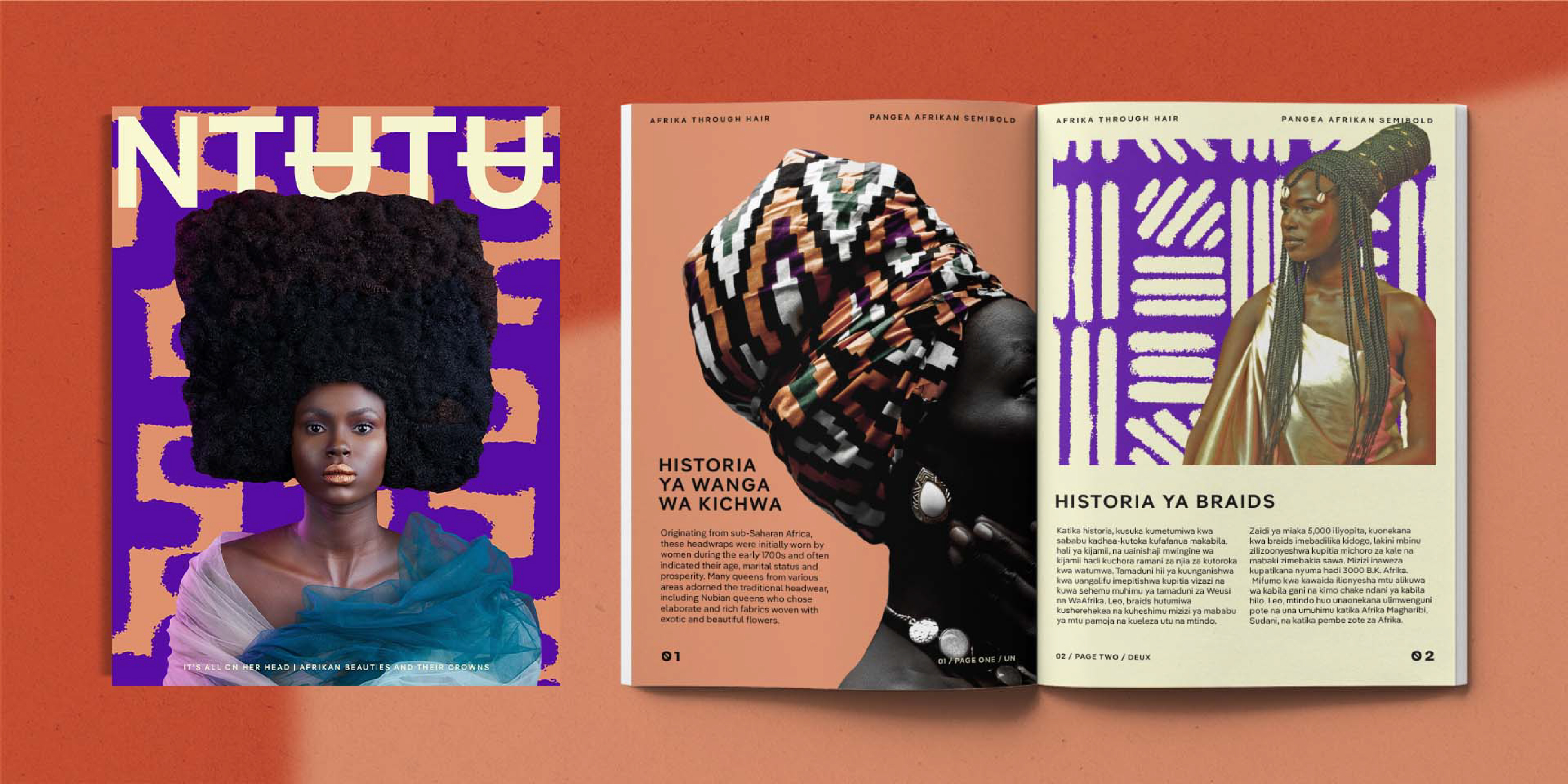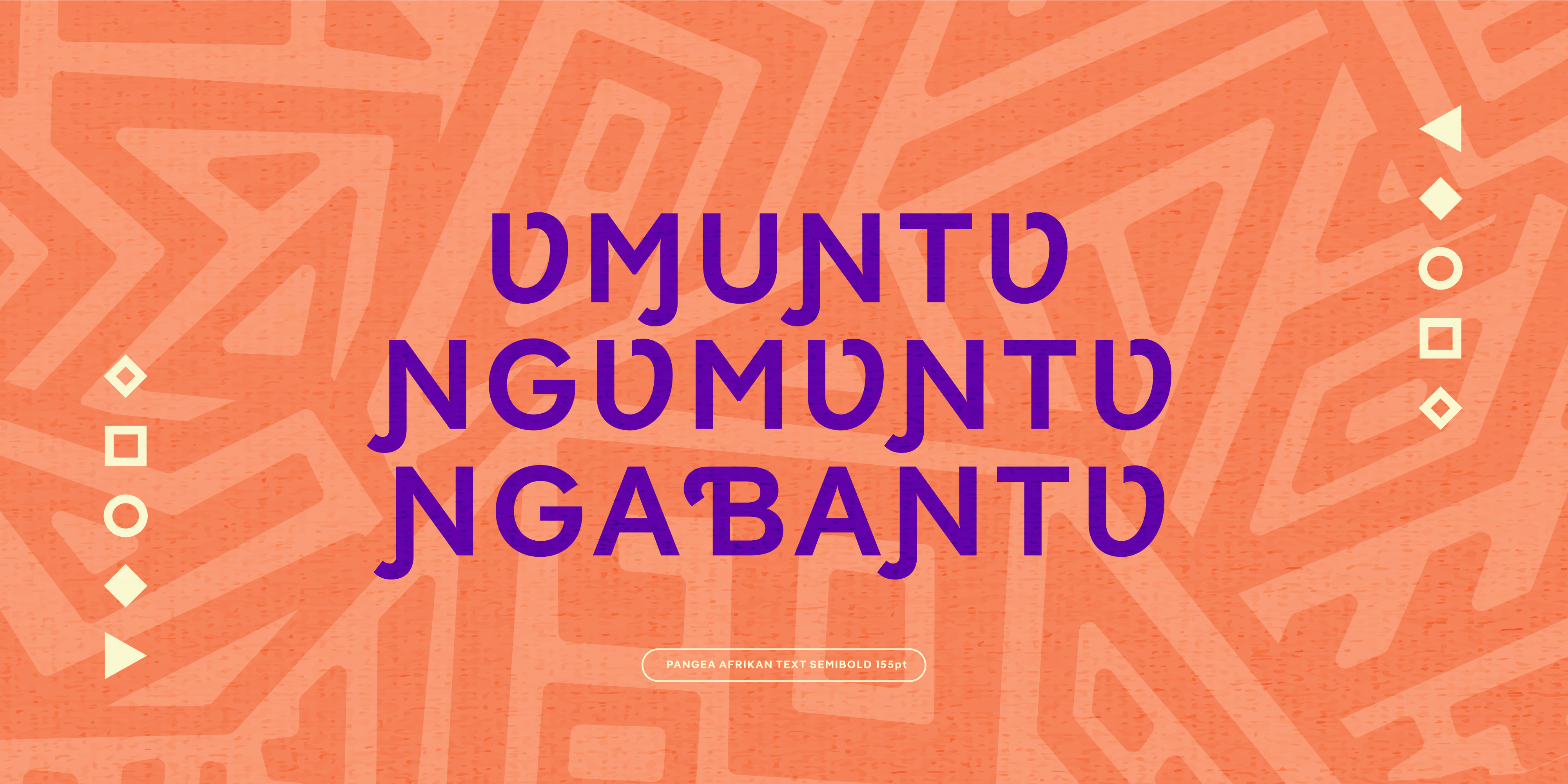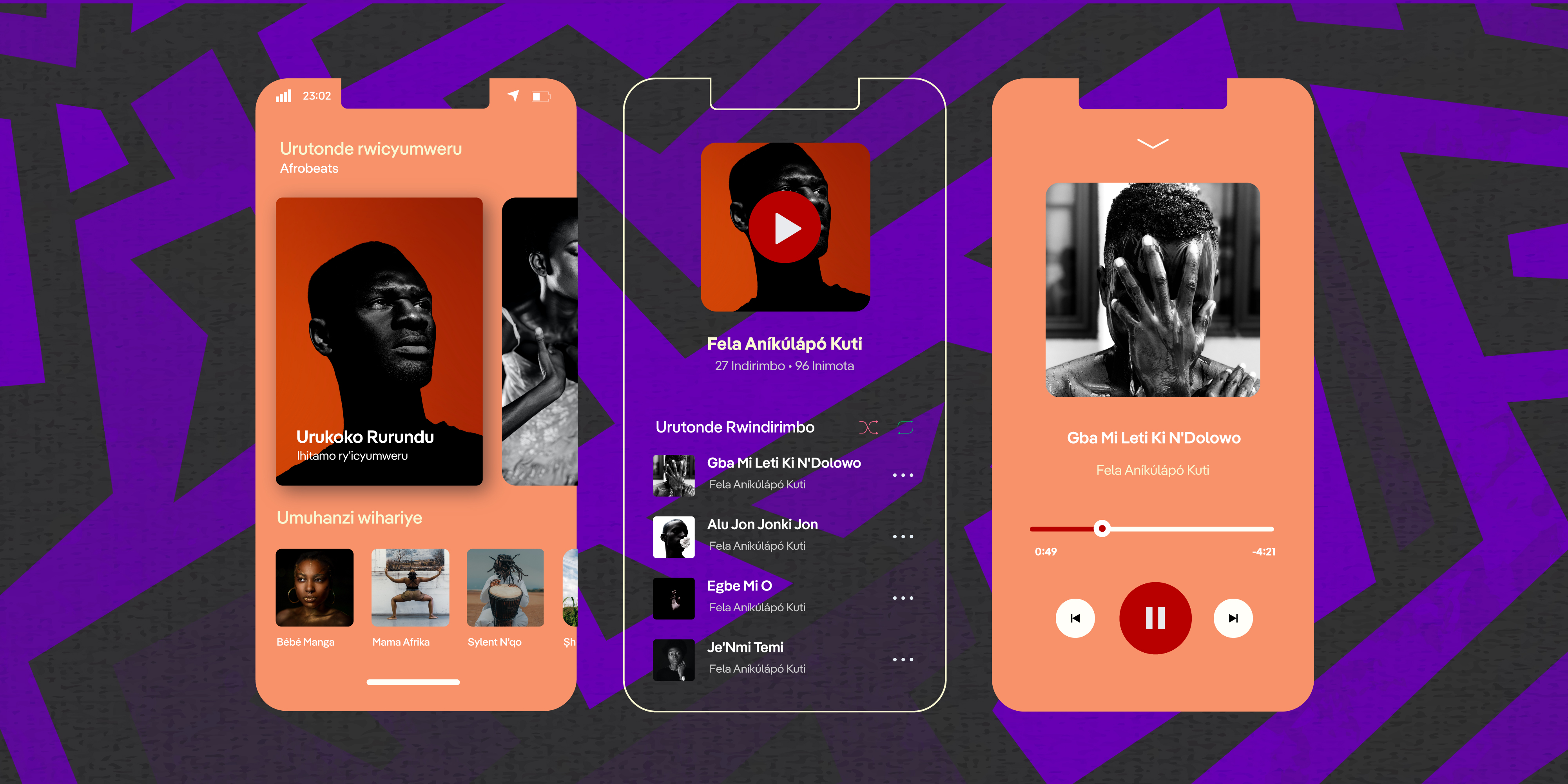
Pangea Afrikan
Our popular geometric sans’ next stop is Africa.
It’s only been a year and a half since Pangea® was first released but thanks to the ongoing donation of a quarter of all designer royalties, over 75,000 trees have been planted and at least 2,600 tonnes of carbon dioxide has been offset. Meanwhile, Pangea also continues to pursue its second major goal: connecting cultures and continents. One way in which it does this is by promoting underrepresented languages.
Providing support for African-Latin languages means to support the languages of over 430 million people.
F
rom the outset, Pangea included European Latin, Greek, Extended Cyrillic (including overlooked languages such as Kyrgyz or Bashkir) and Vietnamese as well as characters for the transcription of Arabic and Sanskrit. The next language extension milestones planned are Hebrew and Arabic (Persian, Urdu, Dari as well as Pashto).
Designer Christoph Koeberlin sees Pangea as an inclusive typeface family. Its name refers to his approach of considering different cultures and continents as part of a common whole. His continuous language extensions challenge Western conventions, as more often than not successful typefaces usually only represent the alphabets of Europe and America. Pangea Afrikan marks an important milestone in this respect: it adds Latin African to its language toolbox. Providing support for languages including Hausa, Yoruba, Igbo, Lingala, Mende, and Umbundu, as well as some indigenous North American languages such as Lushootseed and Navajo–the languages of over 430 million people.
Stylistically, the extension remains true to the tried and tested Pangea formula: the space-saving compactness of the narrow typefaces of the mid-20th Century is transferred to a straightforward, geometric sans serif. That means a stately x-height, ascenders that correspond to the capital letters, and letters that are hardly open. The font owes its finely balanced lightness to diagonal ends and round dots. With two optical sizes, Pangea Afrikan and Pangea Afrikan Text, something that is rather rare in the geometric genre, users get enormous flexibility and design consequence.
This update does not however, mean the end of the language extension. Together with local designers, additional Non-Latin alphabets such as N’Ko or Geʽez are in the works. These will also be available to existing and future customers at no cost. Until then, however, a little patience is required and it is important to trust the Tanzanian proverb ‘Haraka Haraka haina baraka’ (Hurry hurry has no blessings).